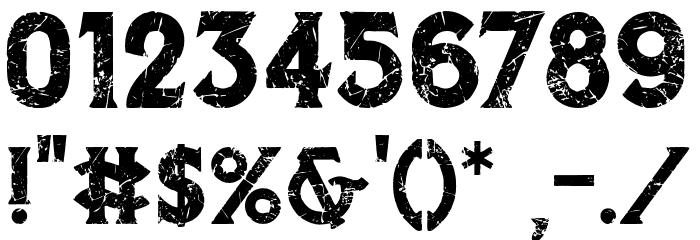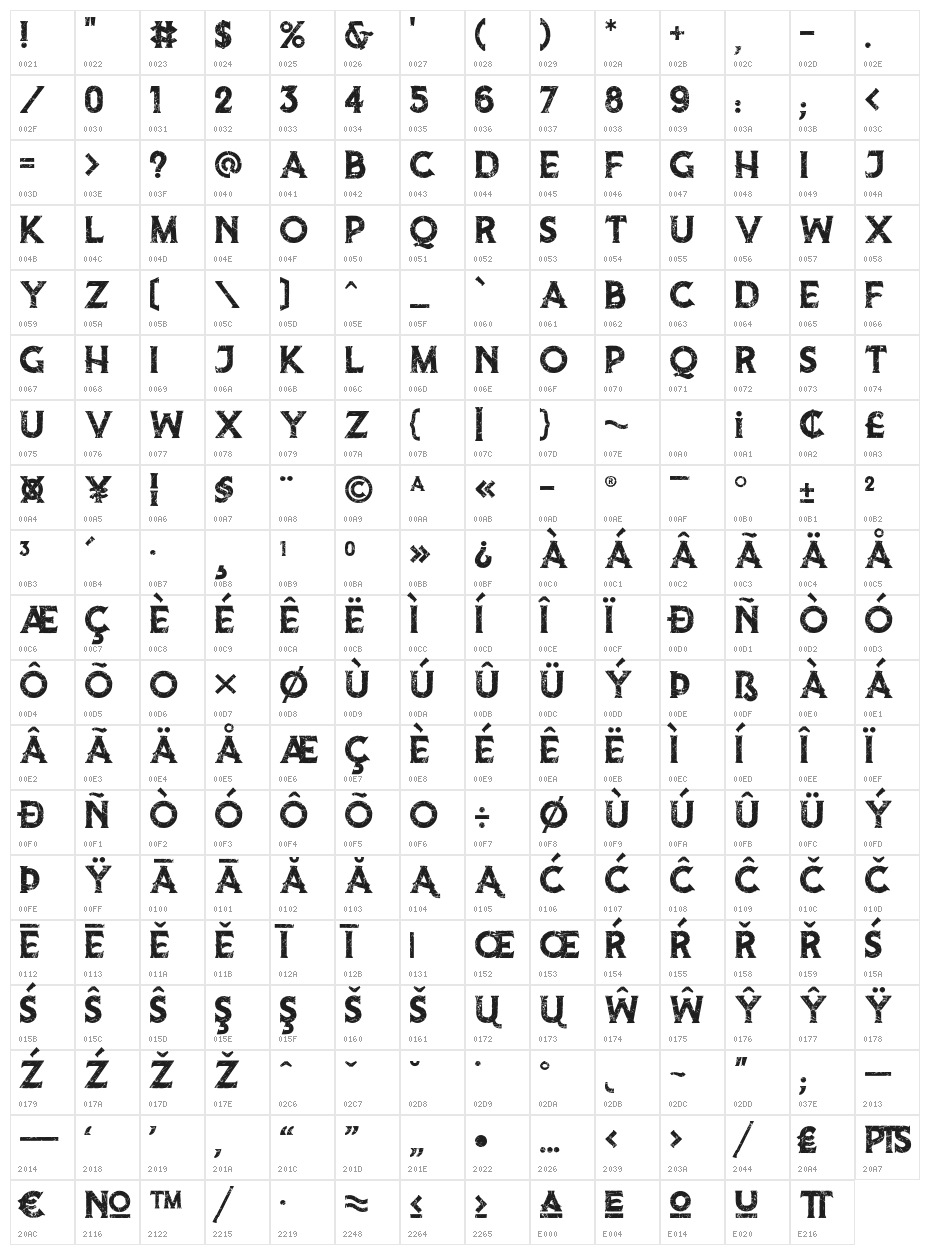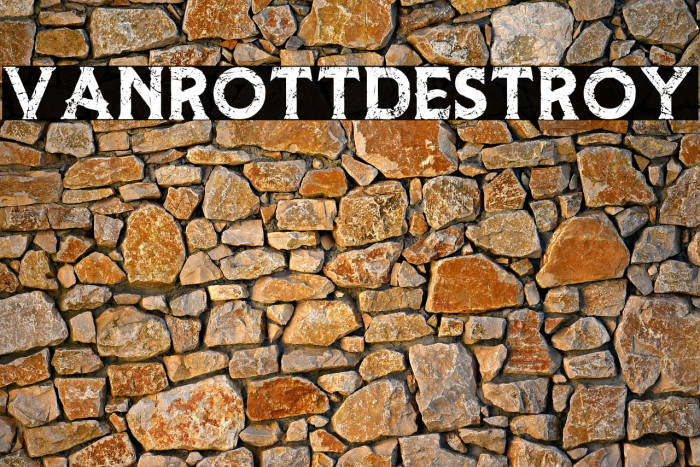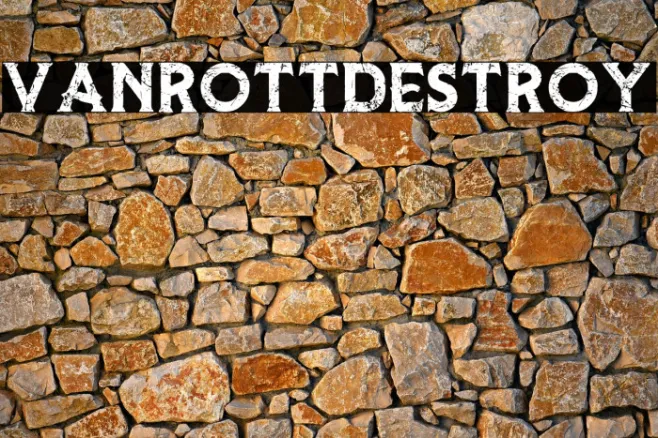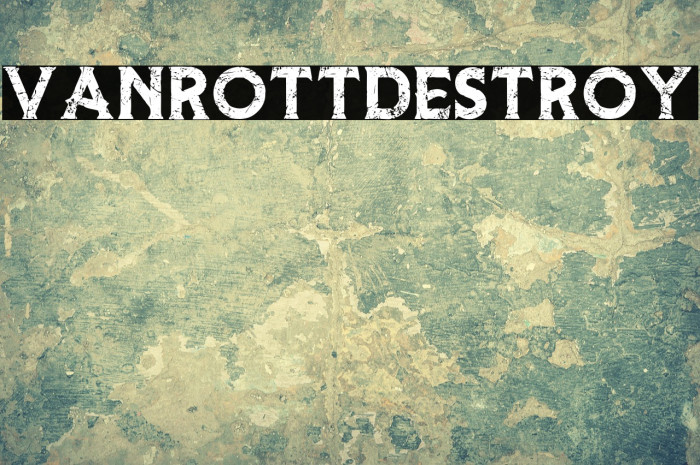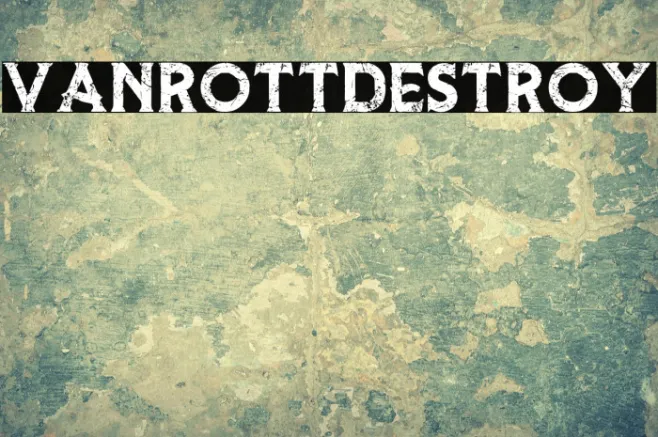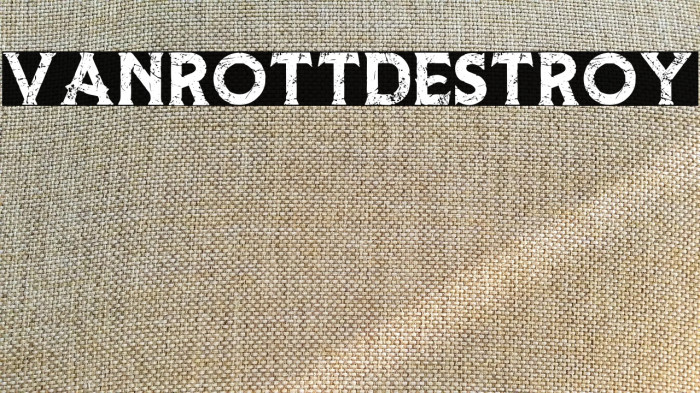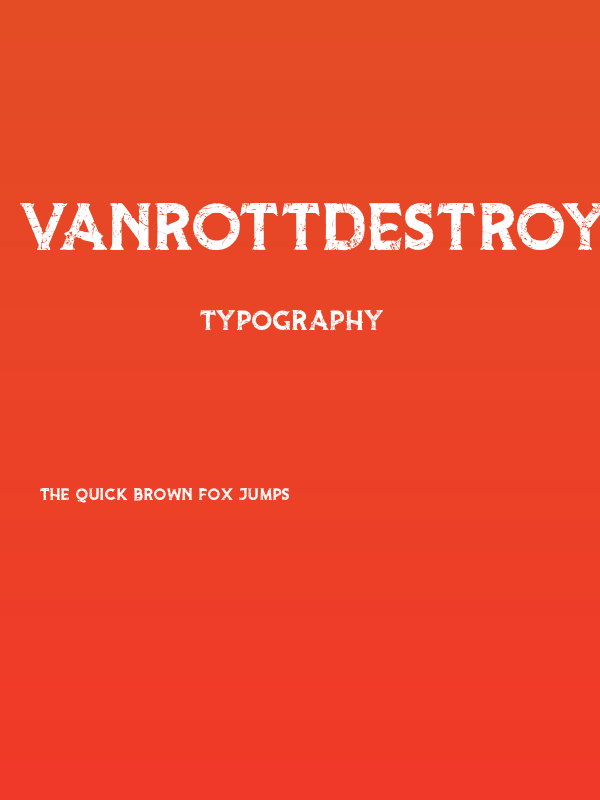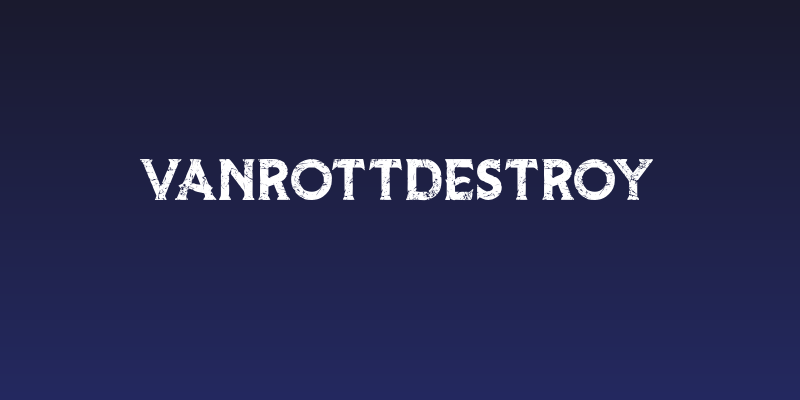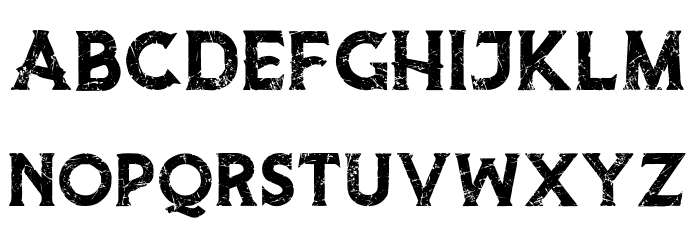
VanrottDestroy Font
VanrottDestroy Description
This font features a distressed, grunge style with a rough, textured appearance that gives it a worn and weathered look. The characters are bold and impactful, with irregular edges and a slightly chaotic feel. This design choice adds a sense of ruggedness and raw energy, making it ideal for projects that require a bold statement. The uppercase and lowercase letters maintain a consistent style, while the numbers and special characters complement the overall aesthetic. The font's unique texture makes it stand out, providing a visually striking effect.
| Overall Style | Grunge, Edgy |
| Proposed Projects | Ideal for album covers, posters, urban-themed designs, and branding that requires a bold, edgy look. |